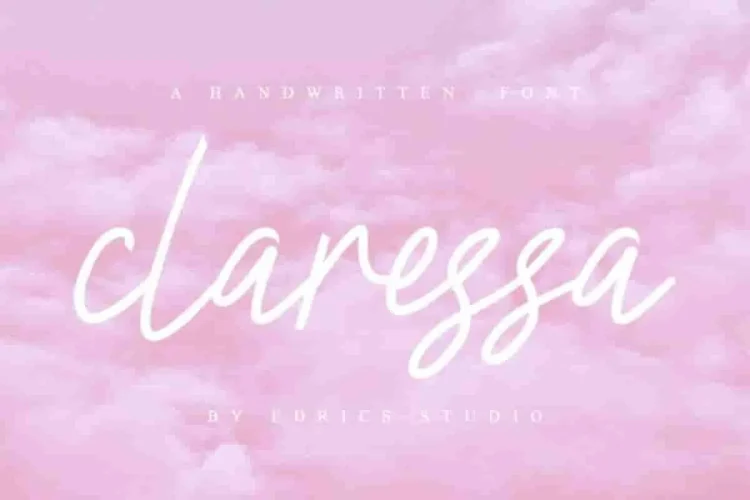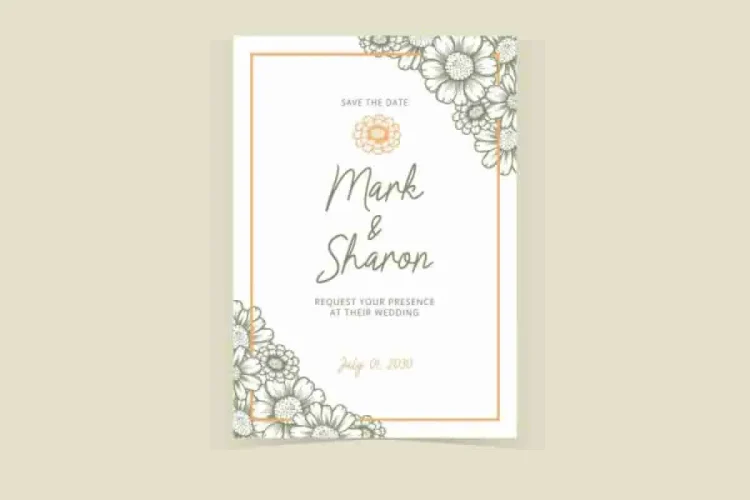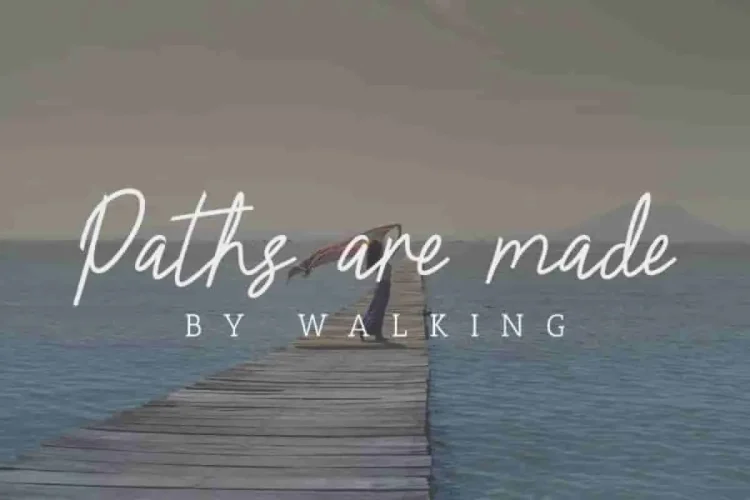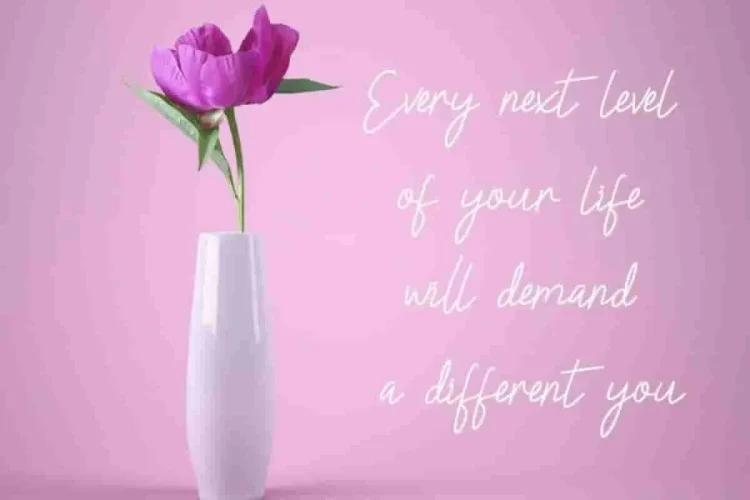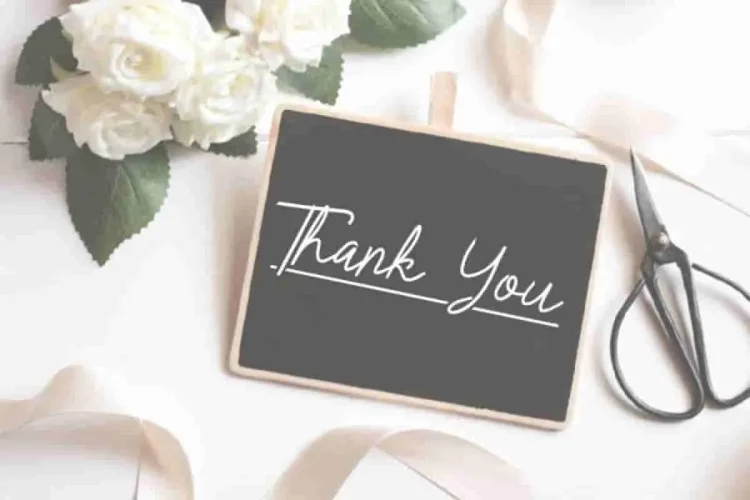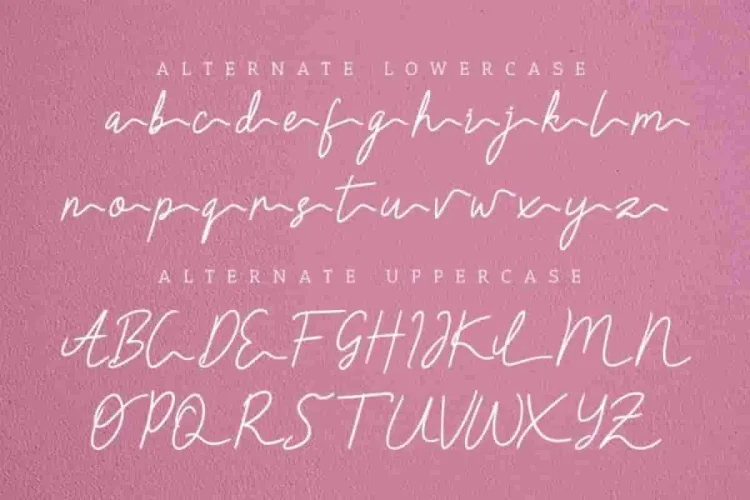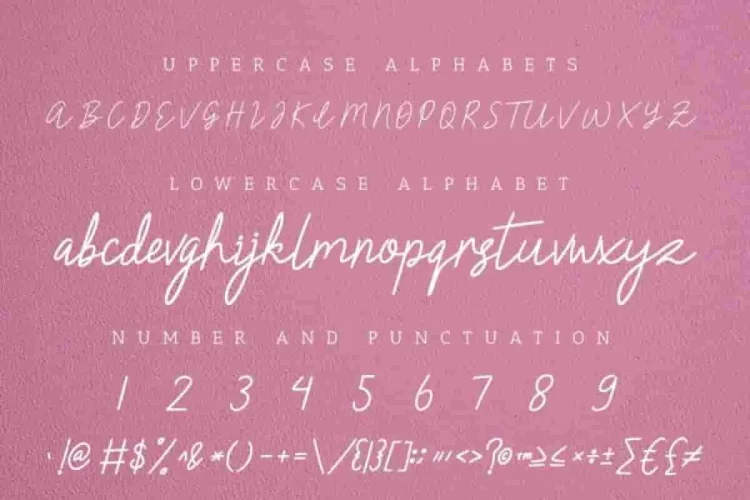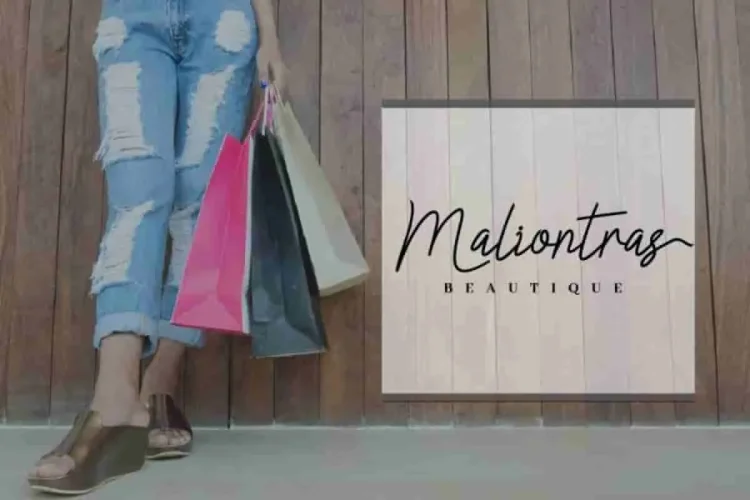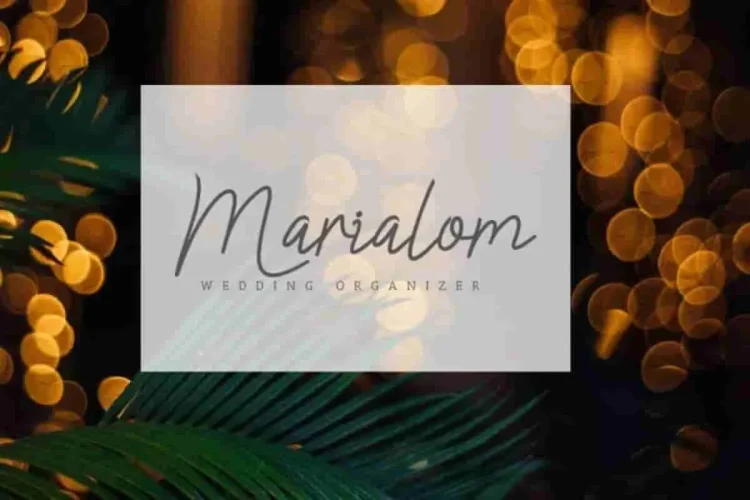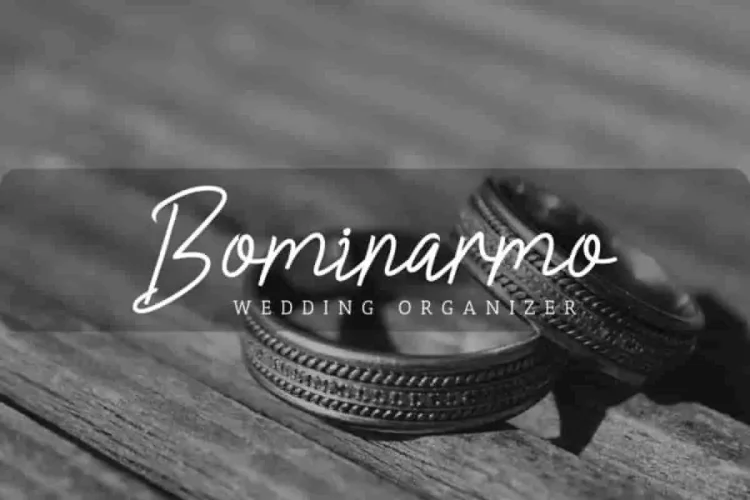
Claressa Signature Handwriting Font
Please let us introduce to you our latest product of signature font : Claressa Font
Claressa Font is a signature with sopisticated glyphs and got so many alternatives glyps : both lower and upper cases. Claressa Font has also international languages glyphs.
Claressa Font brings elegance and versatility, making it ideal for many industries such as law firms, gardening, makeup artistry, music, floristry, architecture, real estate, interior design, cafés, and more.